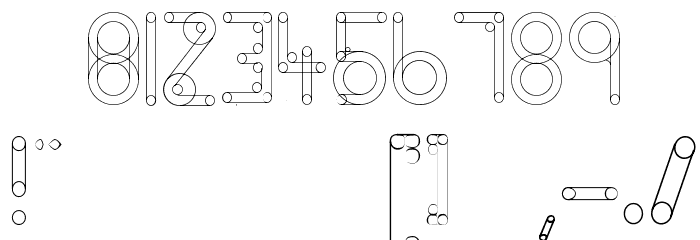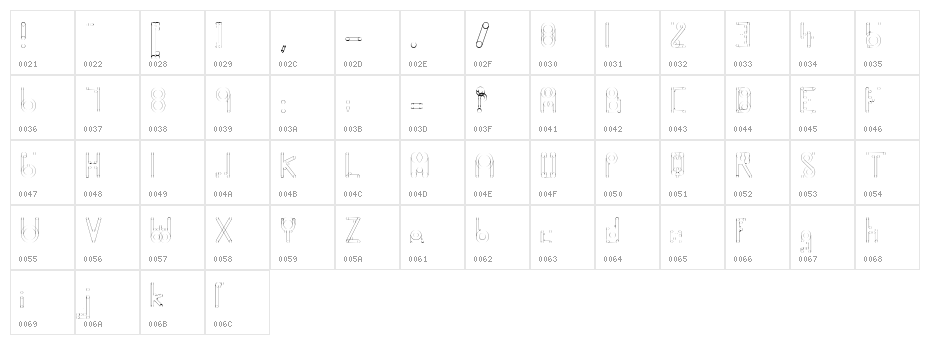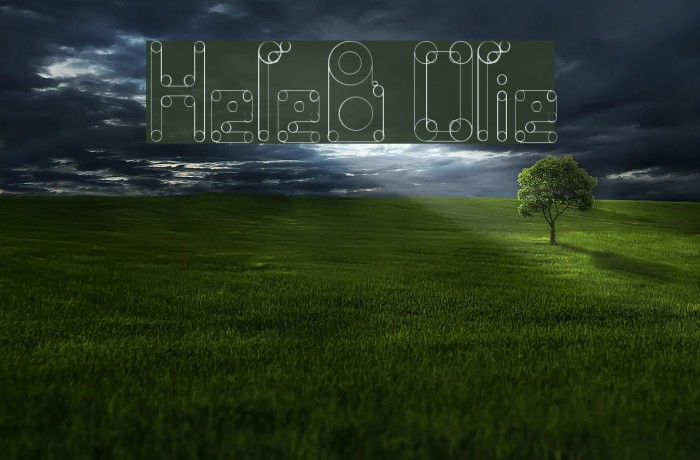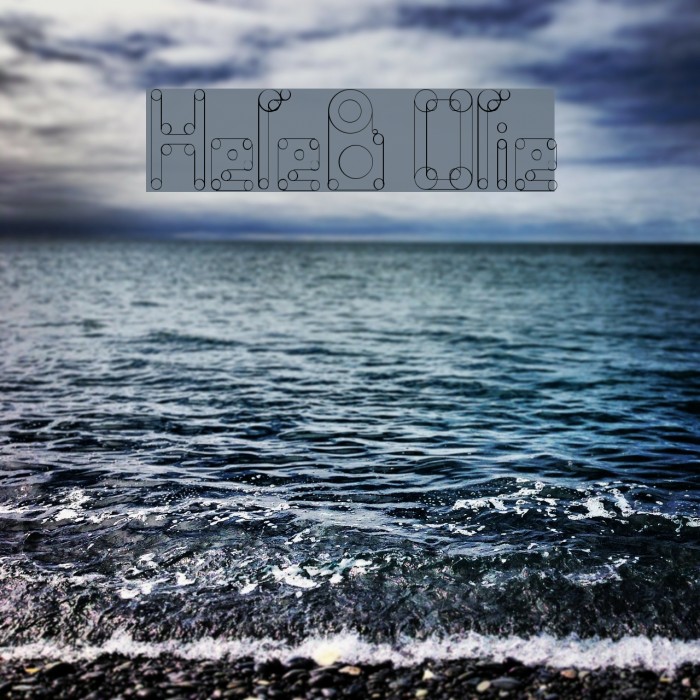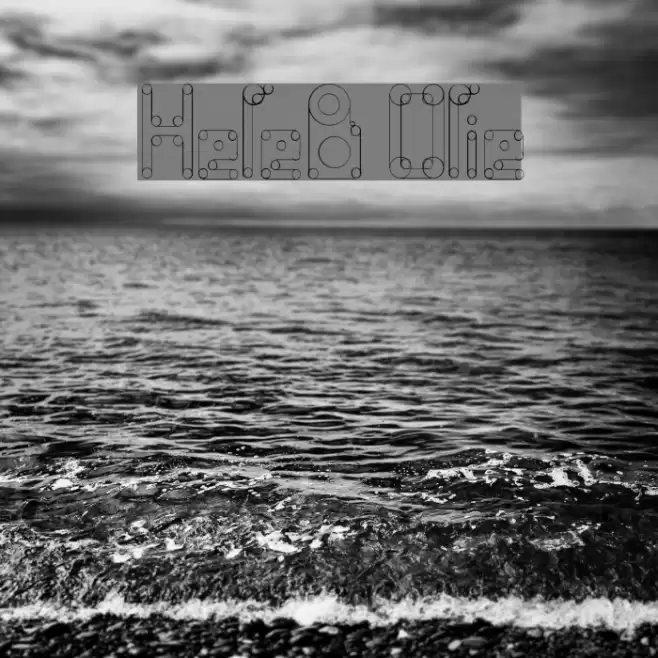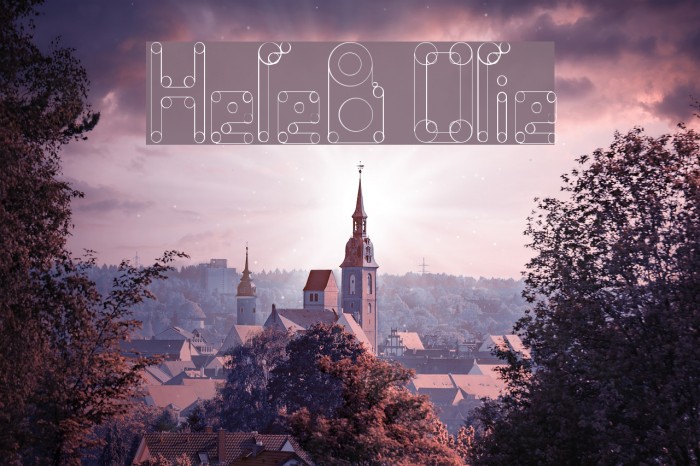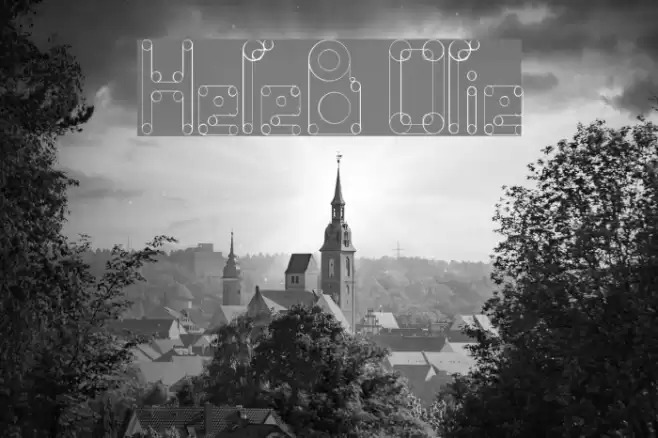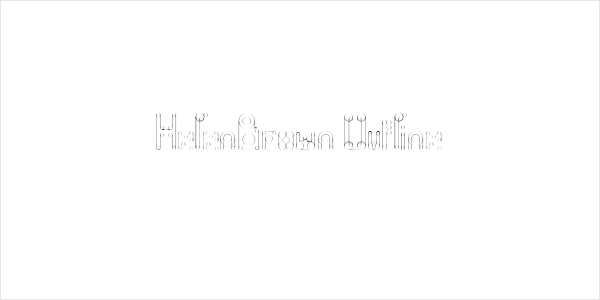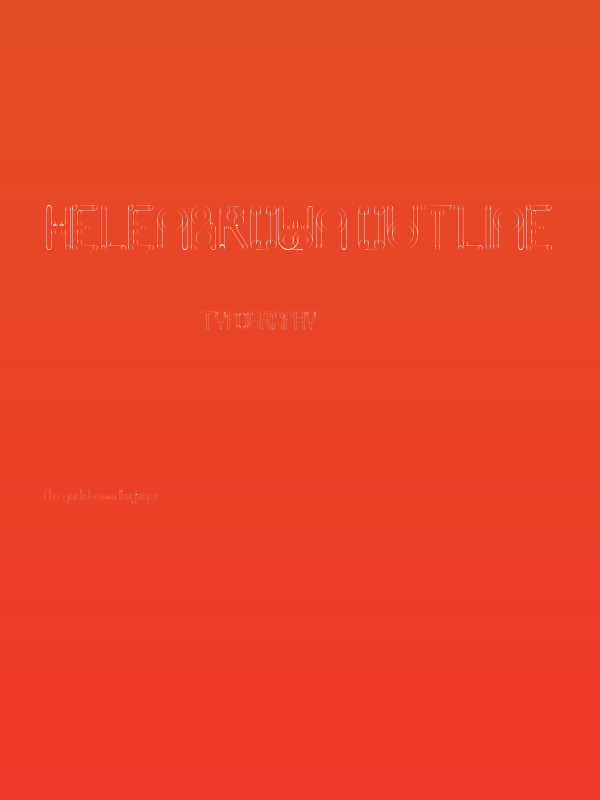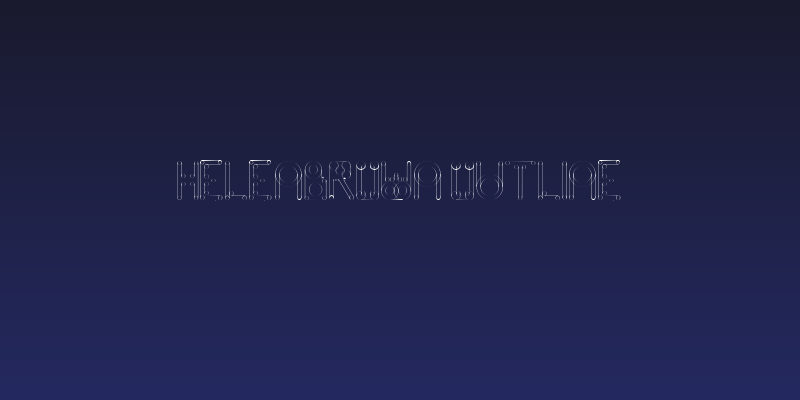
HelenBrown Outline Font
HelenBrown Outline Description
This font features a unique and playful design with an outline style that incorporates circular and linear elements. Each character is constructed with a series of interconnected circles and lines, creating a geometric and modern appearance. The uppercase and lowercase letters maintain a consistent style, with a focus on symmetry and balance. Numbers and special characters follow the same design principles, ensuring a cohesive look across all glyphs. The font's outline nature gives it a light and airy feel, making it suitable for creative and artistic projects.